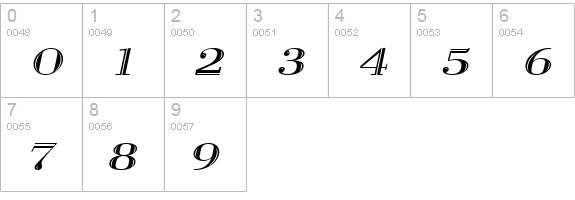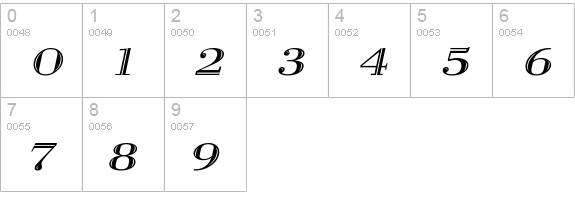
VangardOpen Italic Font Details
VangardOpen Italic is a distinctive, italic variant in the VangardOpen typeface family \xE2\x80\x94 well suited to design and typography projects.
VangardOpen Italic font is a stunning display typeface that exudes elegance and sophistication. With its sleek and modern design, this font is perfect for adding a touch of style to any project. The italicized letterforms create a sense of movement and fluidity, making it ideal for conveying a sense of dynamism and energy. What sets VangardOpen Italic font apart is that it is not only visually striking but also free. Yes, you read that right! This incredible font is freely available to download at FontsMarket.com. It's rare to come across such a high-quality font that doesn't cost a dime, making VangardOpen Italic font an absolute gem. Whether you're working on a logo, branding materials, website design, or any other creative project, VangardOpen Italic font will elevate your work to new heights. Its clean lines and well-balanced letterforms ensure legibility at any size, making it versatile for both print and digital applications. With its wide range of characters and glyphs, including alternate letterforms and ligatures, VangardOpen Italic font provides endless possibilities for customization and creativity. Whether you want to create a bold and impactful headline or add a touch of elegance to body text, this font has got you covered. So why wait? Don't miss out on the opportunity to enhance your projects with this incredible font. Download VangardOpen Italic font for free at FontsMarket.com and unlock a world of design possibilities. Elevate your work with this elegant and freely available typeface today!